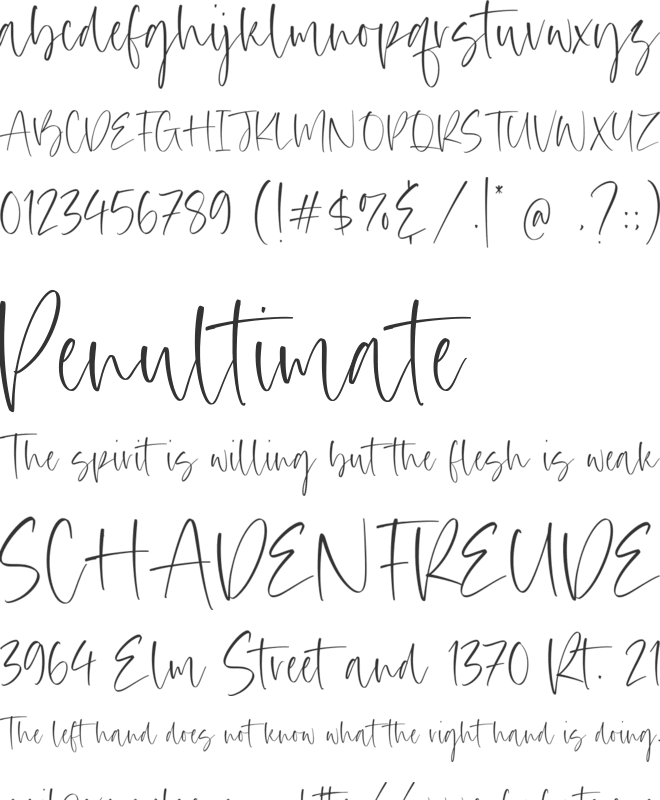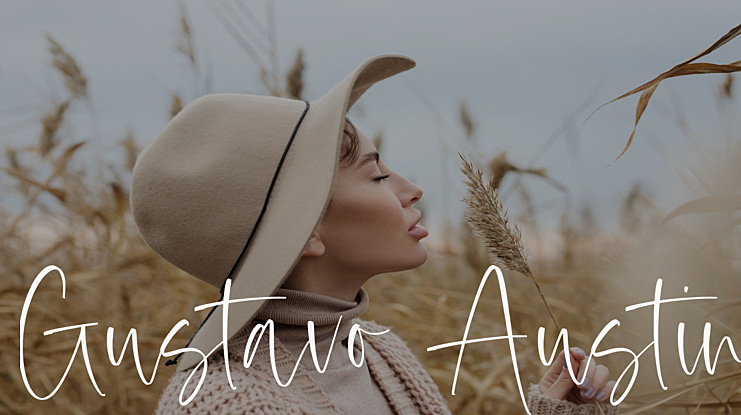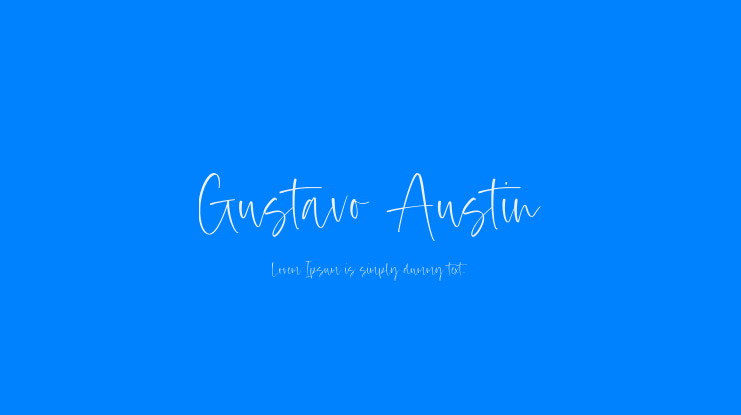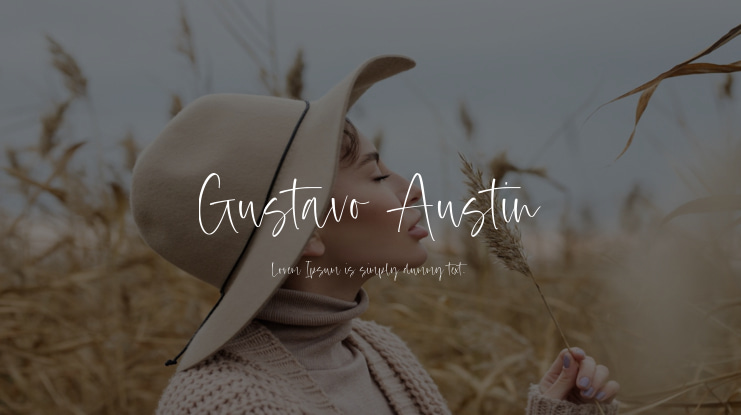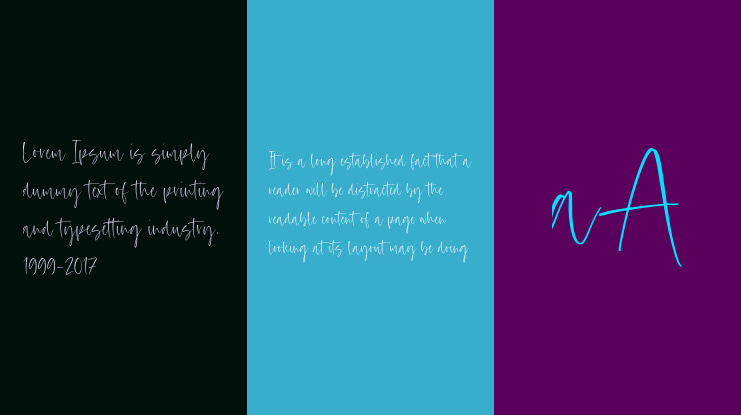
Proudly Present Gustavo Austin
Gustavo Austin is a Handwritten script font that is modern and fresh, and will bring a warm and inviting feel to your business. Take advantage of the fonts and experience the magic for yourself.
Gustavo Austin is perfect for product packaging, branding project, megeenazine, social media, wedding, or just used to express words above the background.
Gustavo Austin Font Features premium :
-Full Set of standard alphabet and punctuation
– Gustavo Austin also multilingual support.